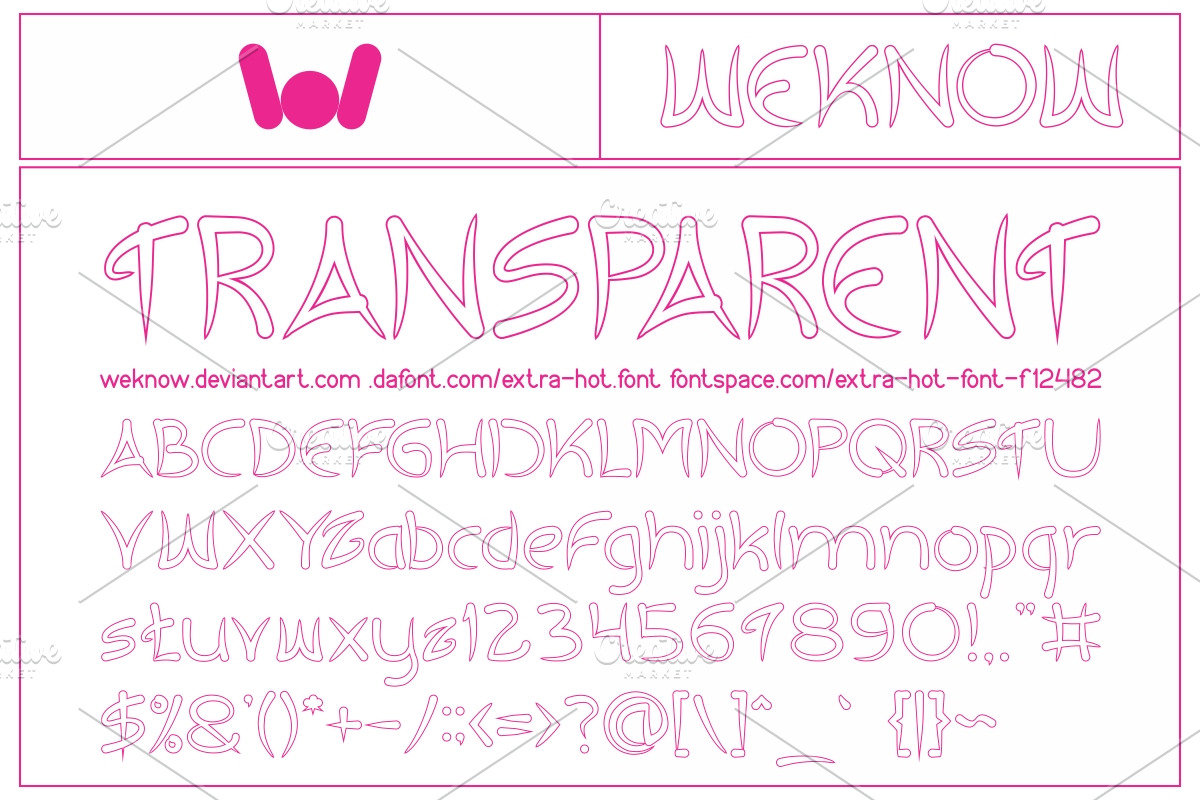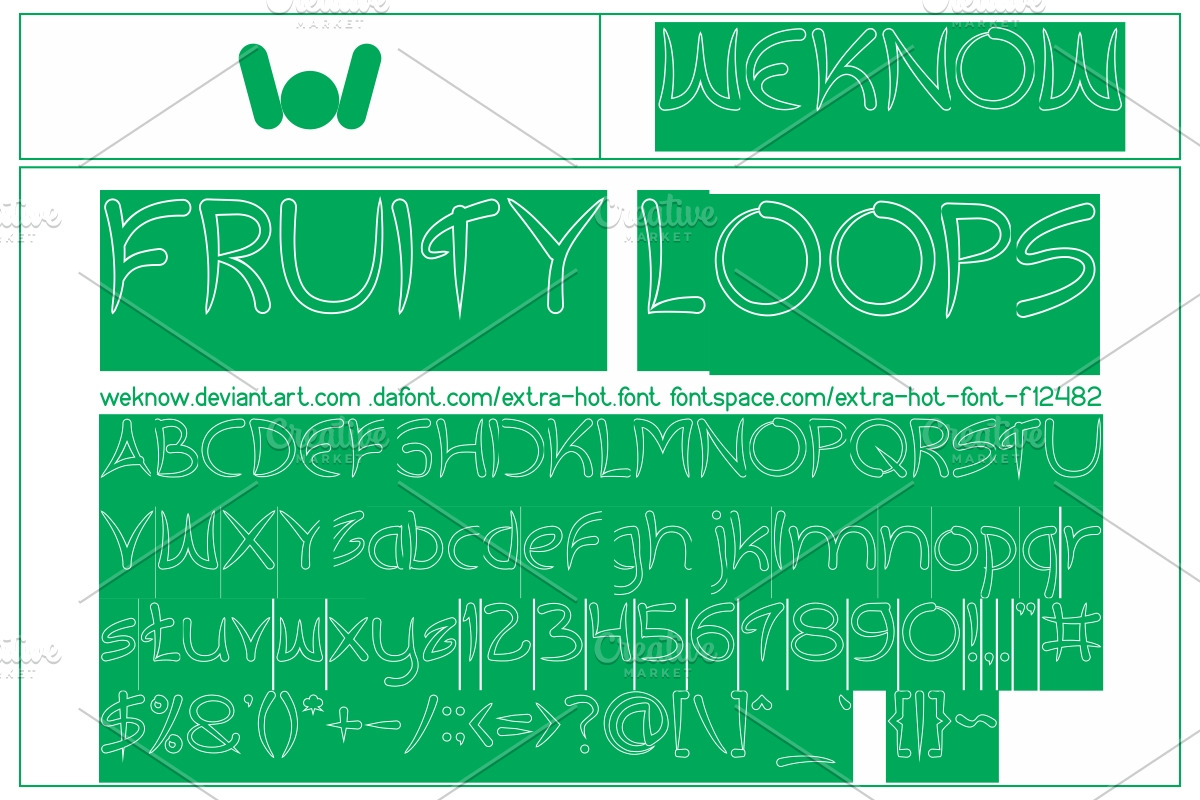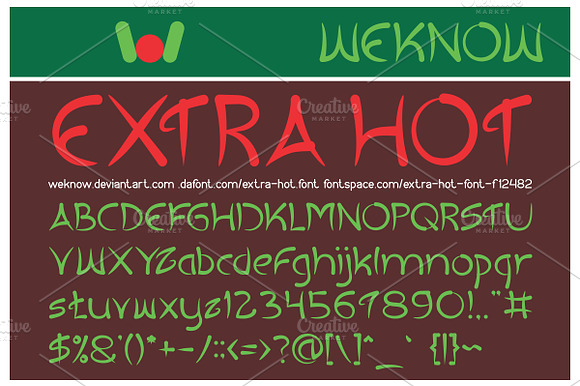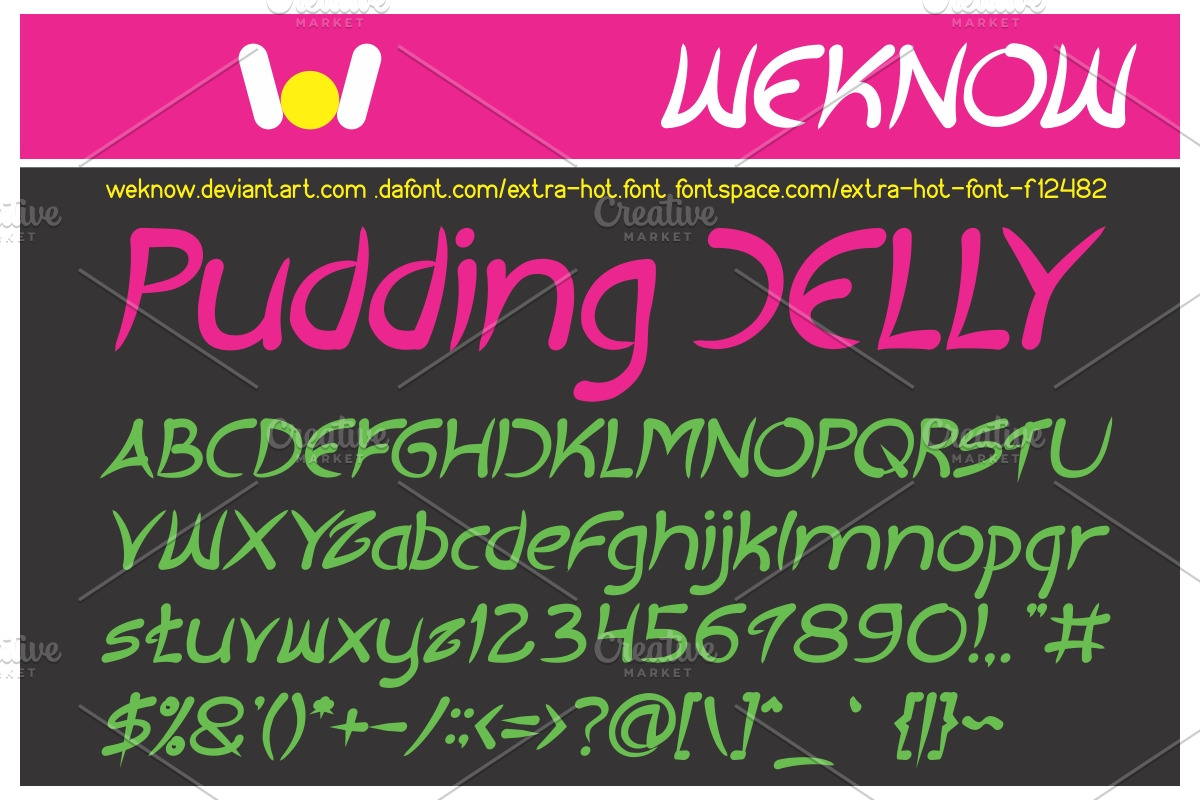
extra hot font
available style: EXTRA HOT-Light, EXTRA HOT-Bold, EXTRA HOT-Bold-Italic, EXTRA HOT-Hollow, EXTRA HOT-Hollow-Inverse, EXTRA HOT-Italic
extra hot font by weknow fits naturally into Branding, posters, packaging, typography.